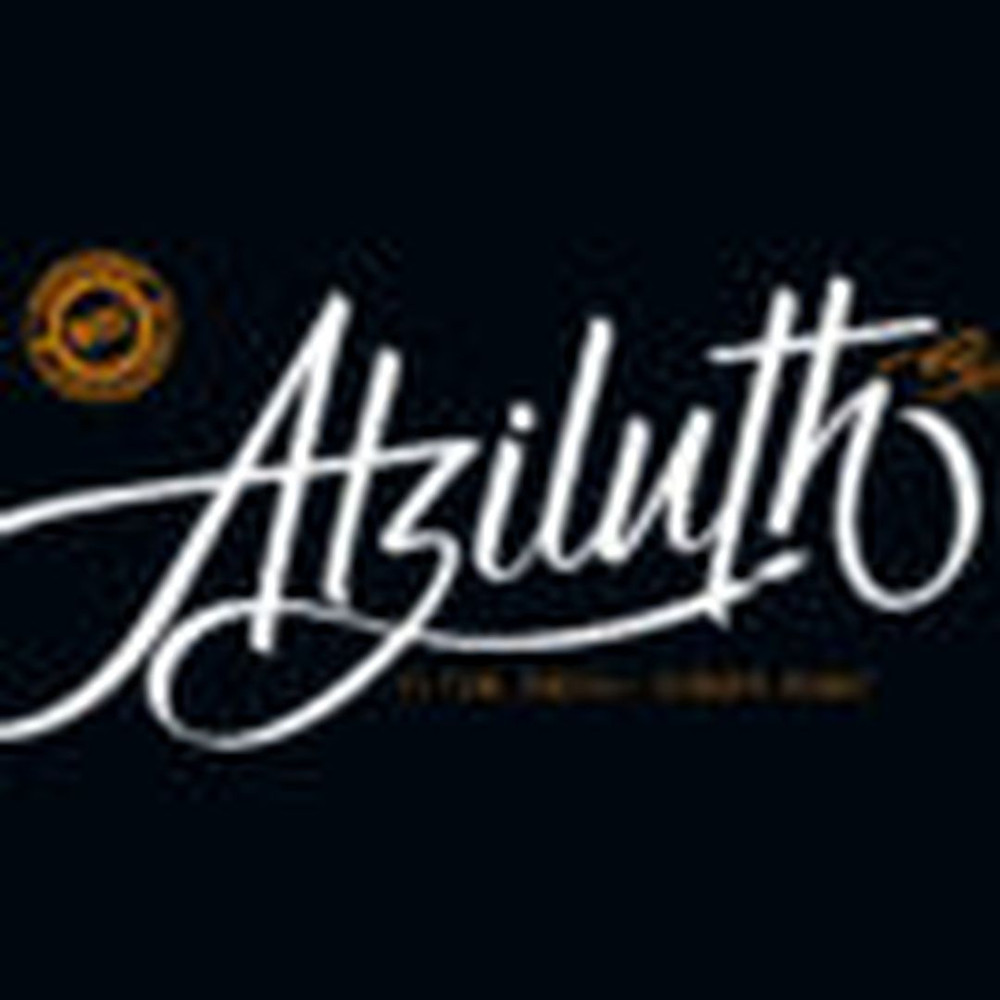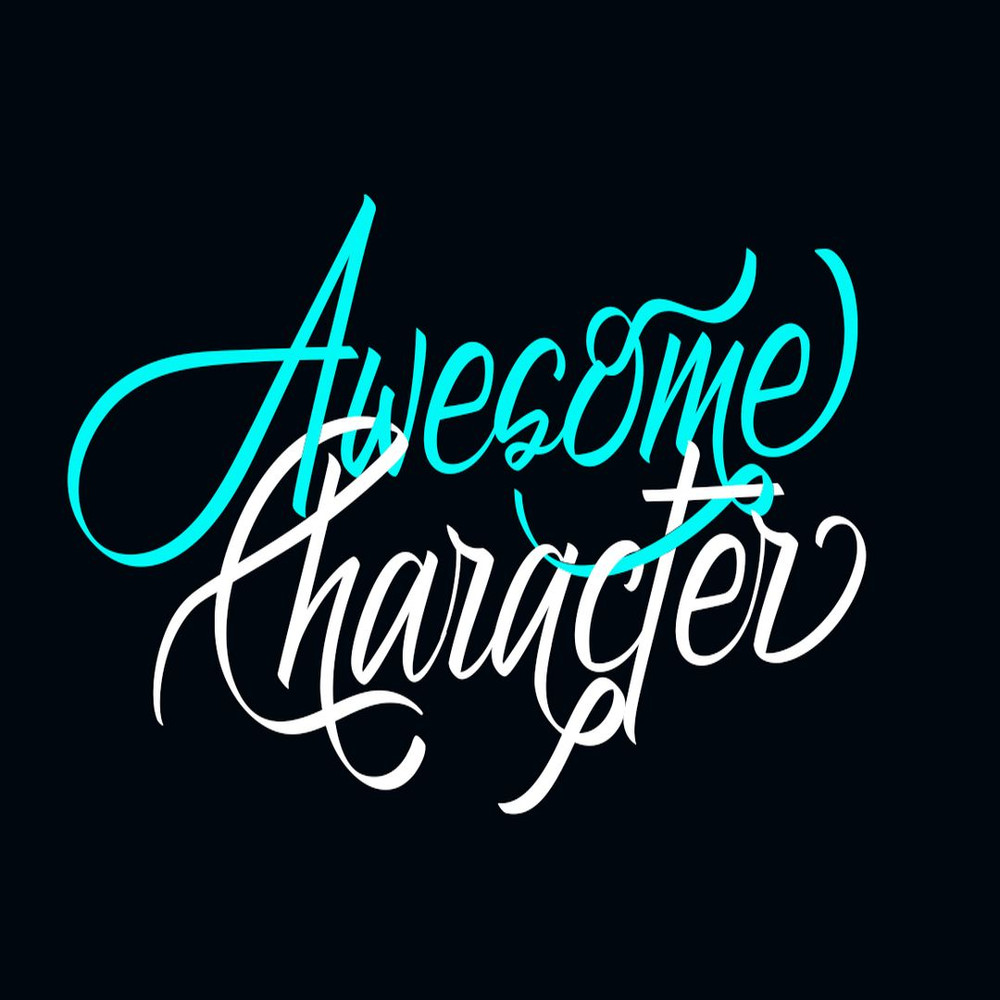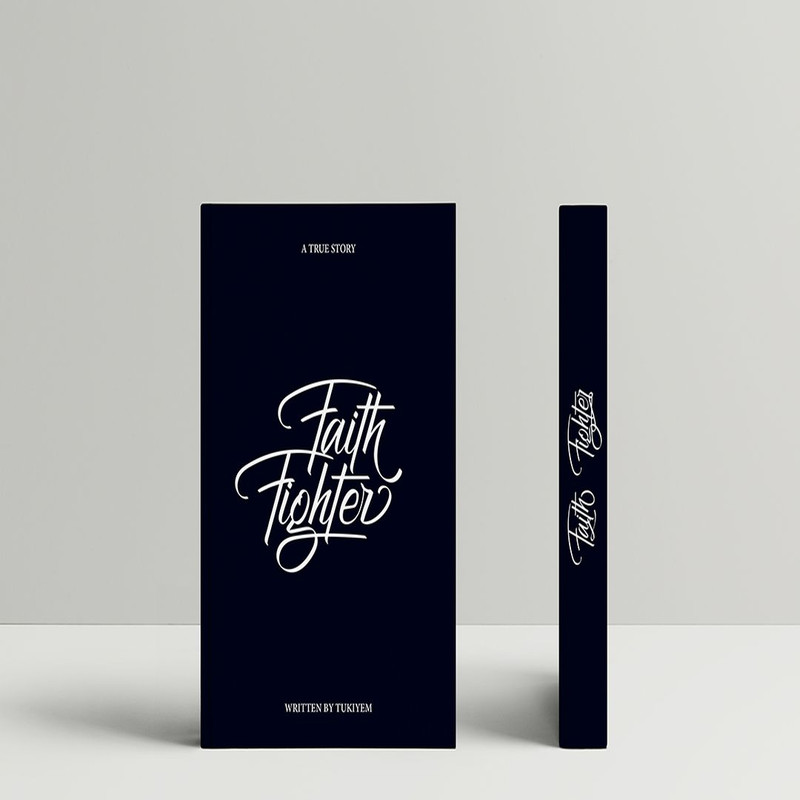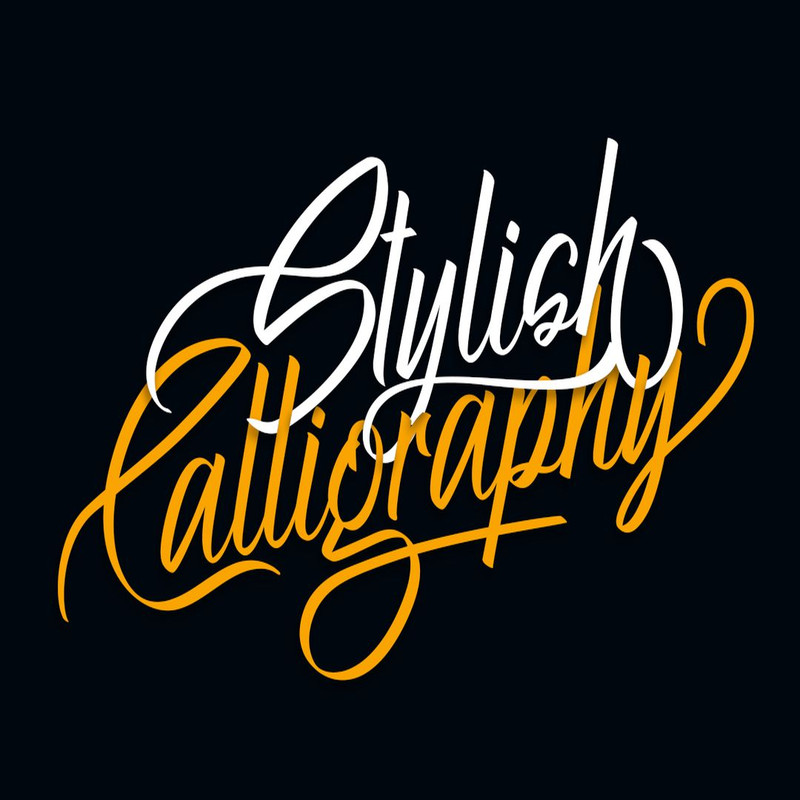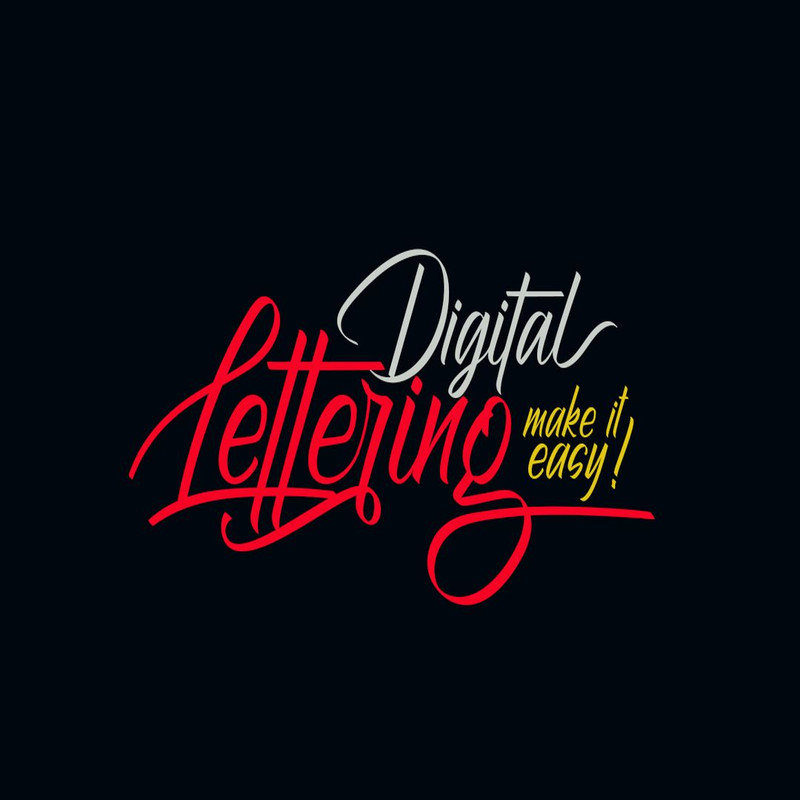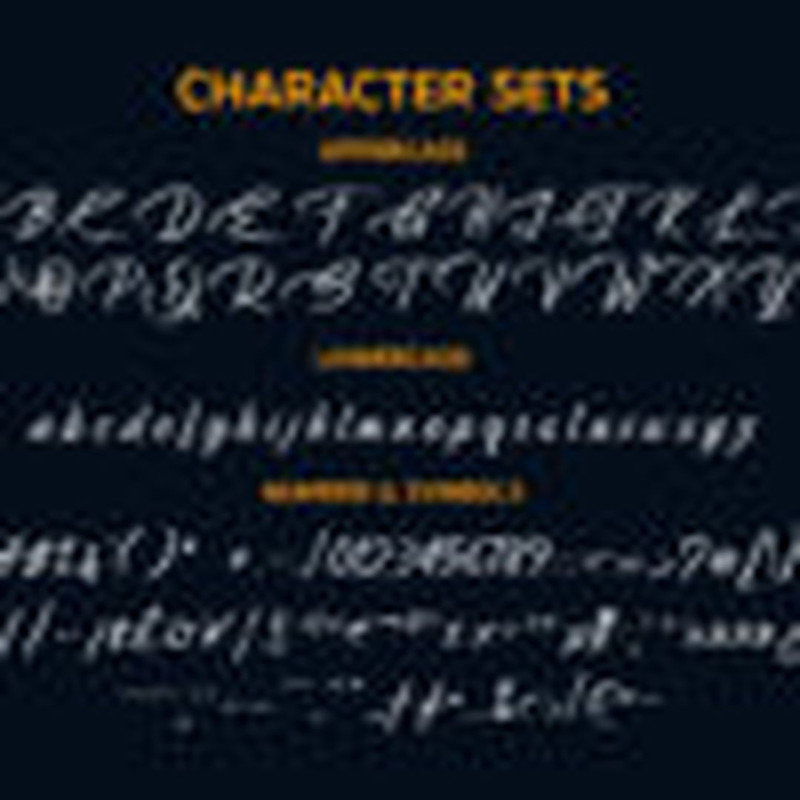
Atziluth is a gorgeous script font based on calligraphic style. This is an accessible and flexible display font, with tons of alternates and ligatures for branding or logotype purposes. It is perfect used for various purposes such as branding, quote, book / cover title, poster, apparel design, product packaging, label, special events or anything that need grace taste.
Ton of glyphs (include Uppercase, Lowercase, Numerals & Punctuations, Accents, Ligatures, Alternates, and Swashes)
Multilingual Support